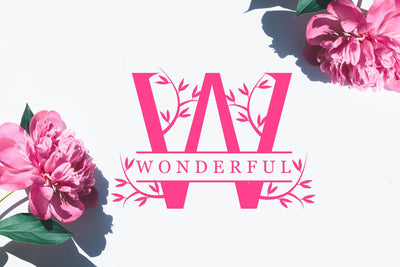
Wonderful Monogram
Wonderful Monogram is a romantic and sweet font that has beautiful ornaments and every letter is very detailed. Perfect for making beautiful invitations, beautiful stationary art, interesting social media posts, cute sticker designs, mugs and greeting cards,